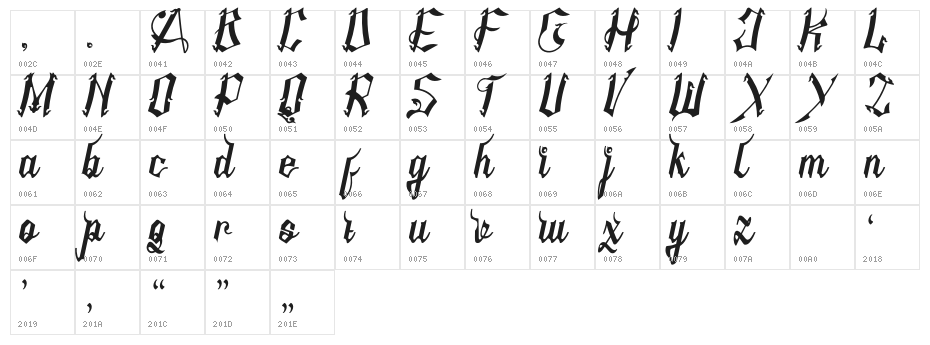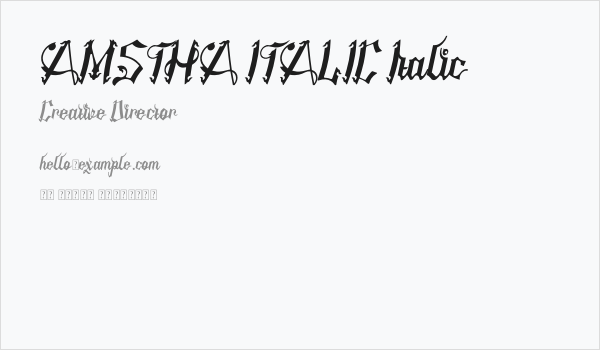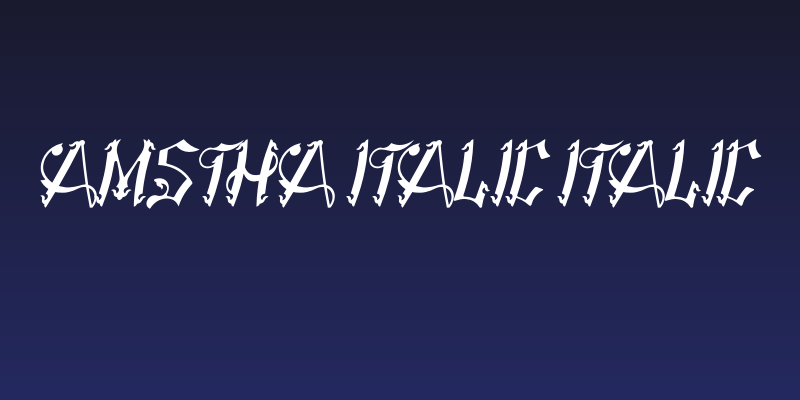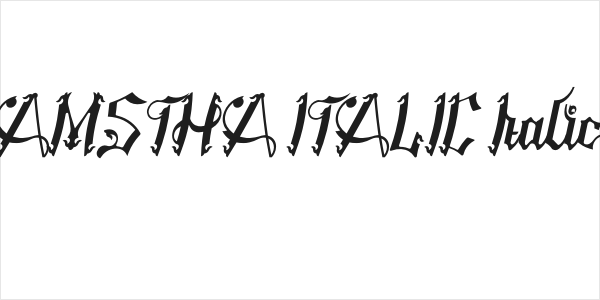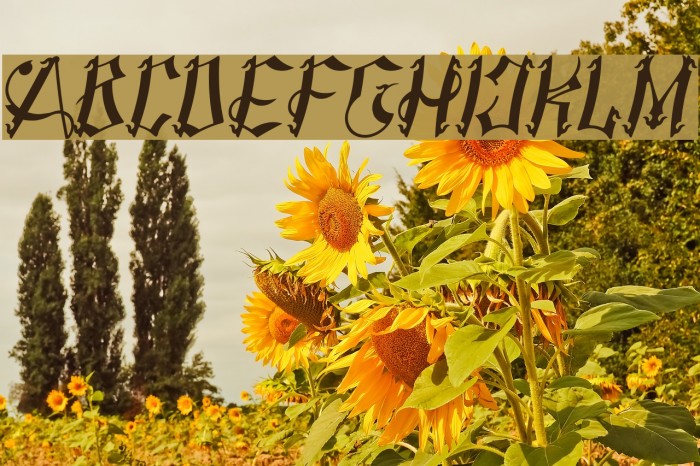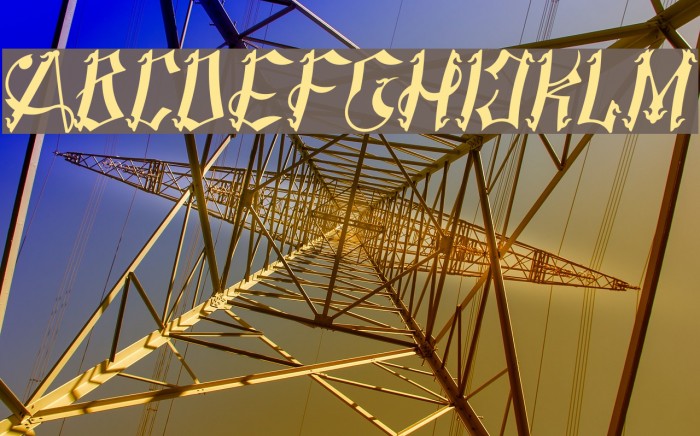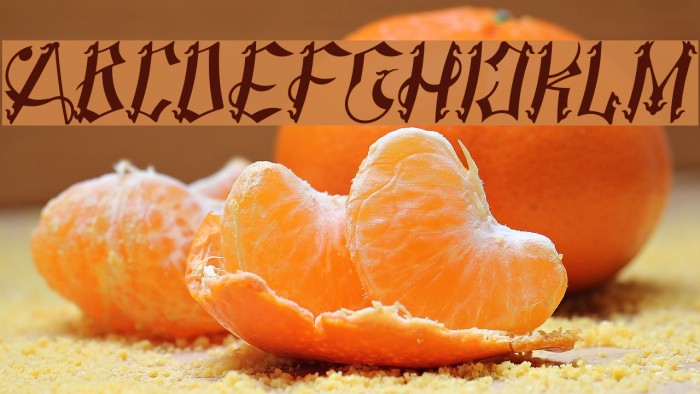
AMSTHA ITALIC Italic Font
This font exhibits a striking and elaborate design, characterized by its sharp, angular strokes and intricate detailing reminiscent of traditional calligraphy. The uppercase letters are bold and commanding, with a distinct Gothic influence that adds a sense of drama and elegance. The lowercase letters maintain this ornate style, providing a cohesive and visually engaging appearance. The font's italic nature enhances its fluidity, giving it a dynamic and flowing quality. The overall aesthetic is both historical and artistic, making it suitable for projects that require a touch of sophistication and flair.
Muhammad Ridha Agusni
| Proposed Projects | Ideal for wedding invitations, historical themed events, book covers, and branding that requires a classic and artistic touch. |